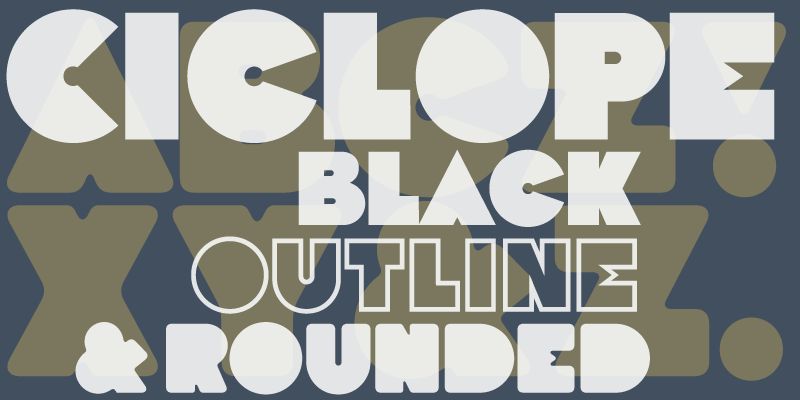
Thanks for downloading CICLOPE. We hope you enjoy it!! Ciclope metal type was launched in the 1930�s by the Fonderia Tipografica Reggiani, a type foundry based in Milan, under the guidance of the modernist typographer Guido Modiano. Ciclope has a strong and bold look, characteristic of the Italian art deco style. The NowType font family has three styles: Black, Black Rounded and Black Outline, which are interchangeable. By Lucas Franco & Claudio Rocha, 2018 If you'd like to access the full font, please check it out here: https://nowtype.net/rock_titling/ Check out also our other typefaces here: https://nowtype.net All the best, Lucas and Claudio |